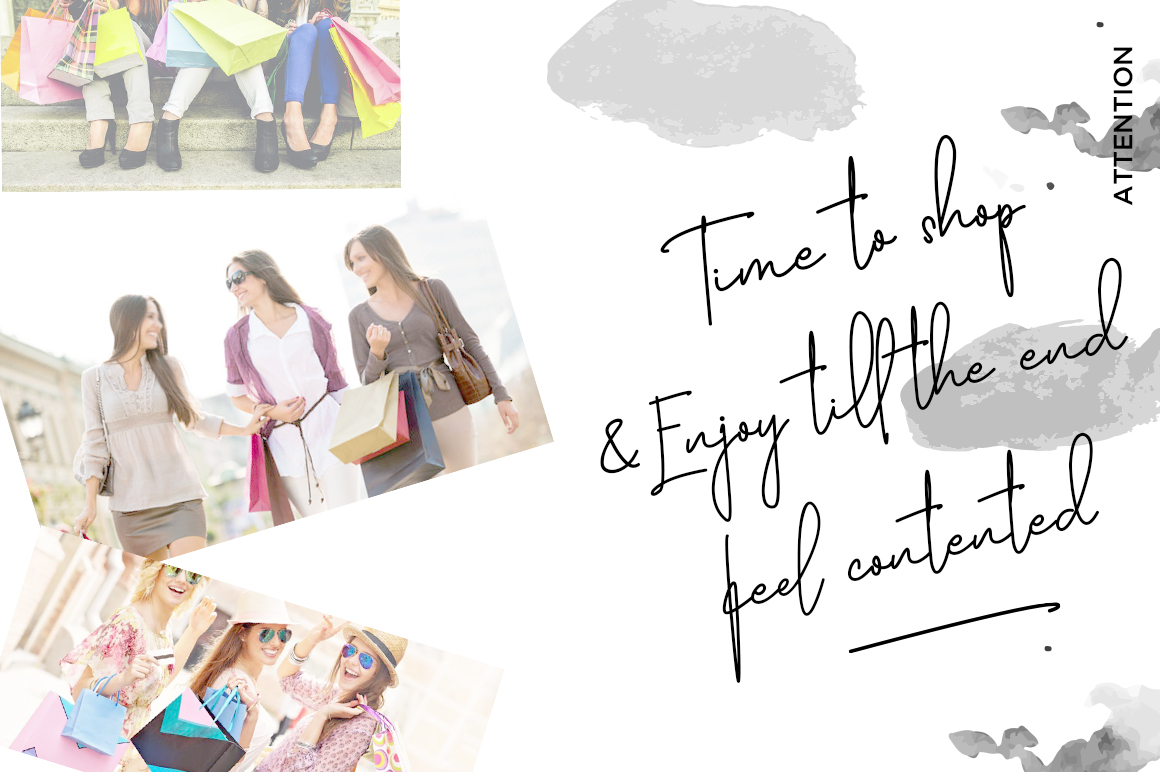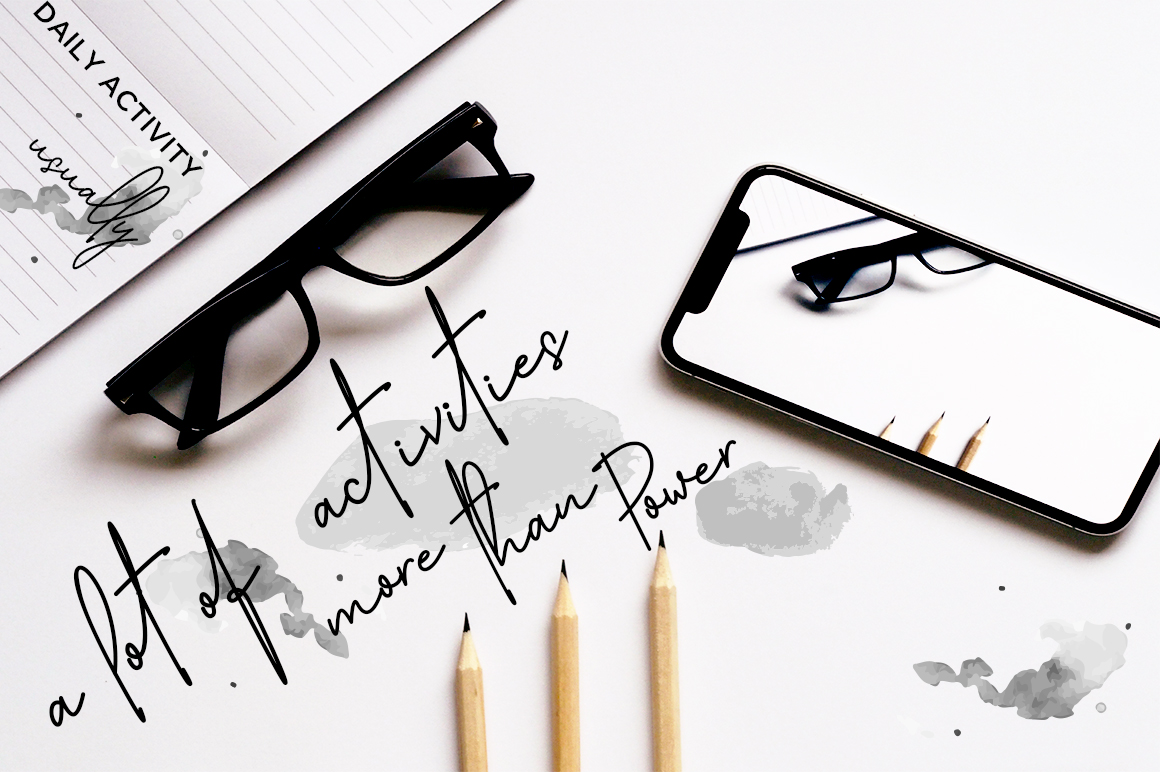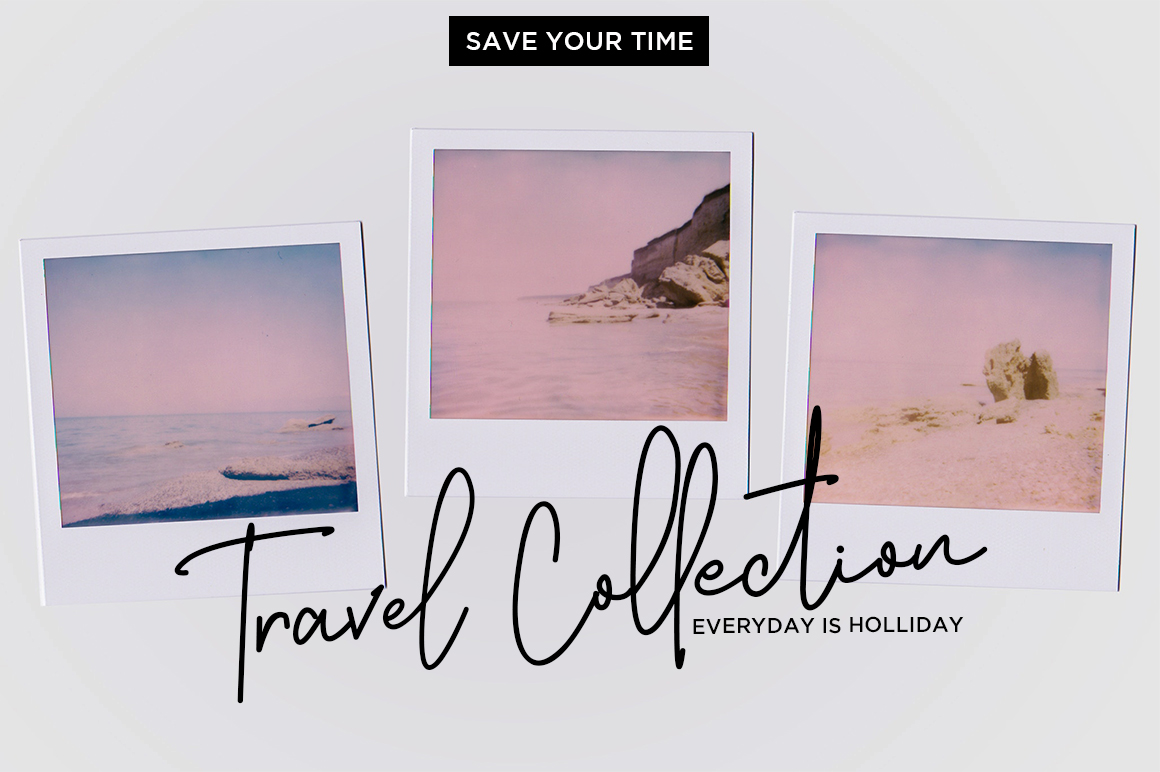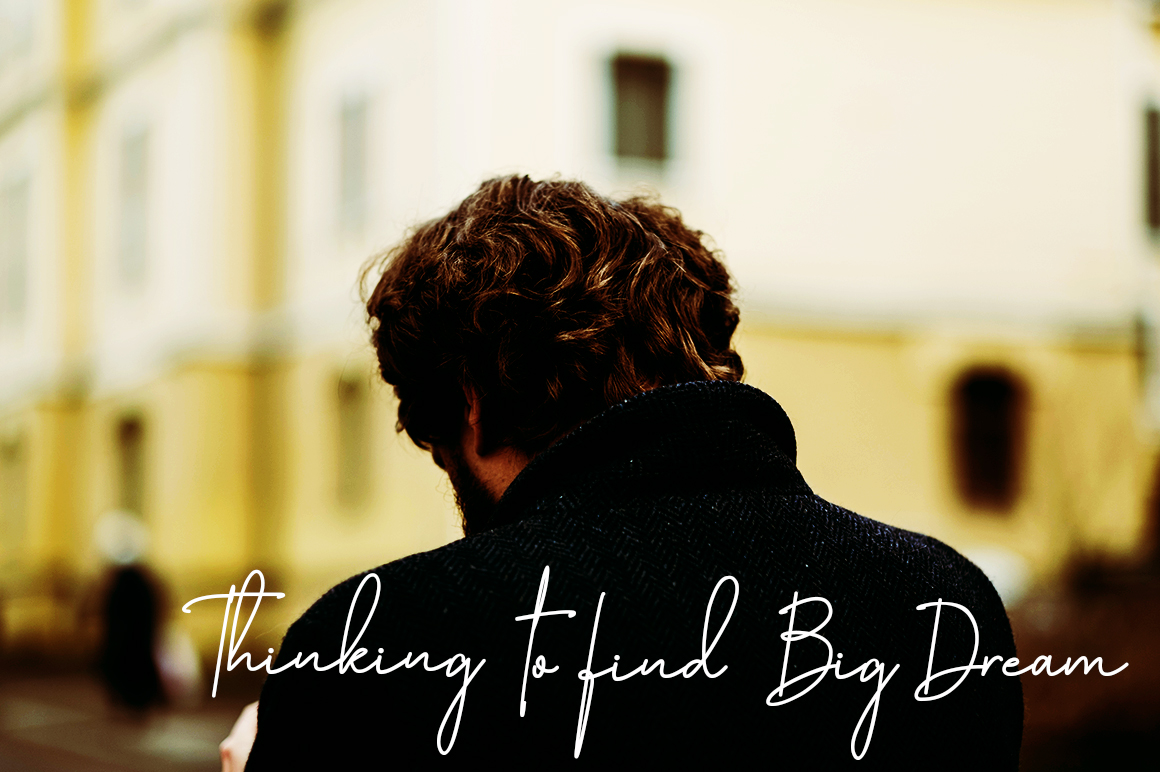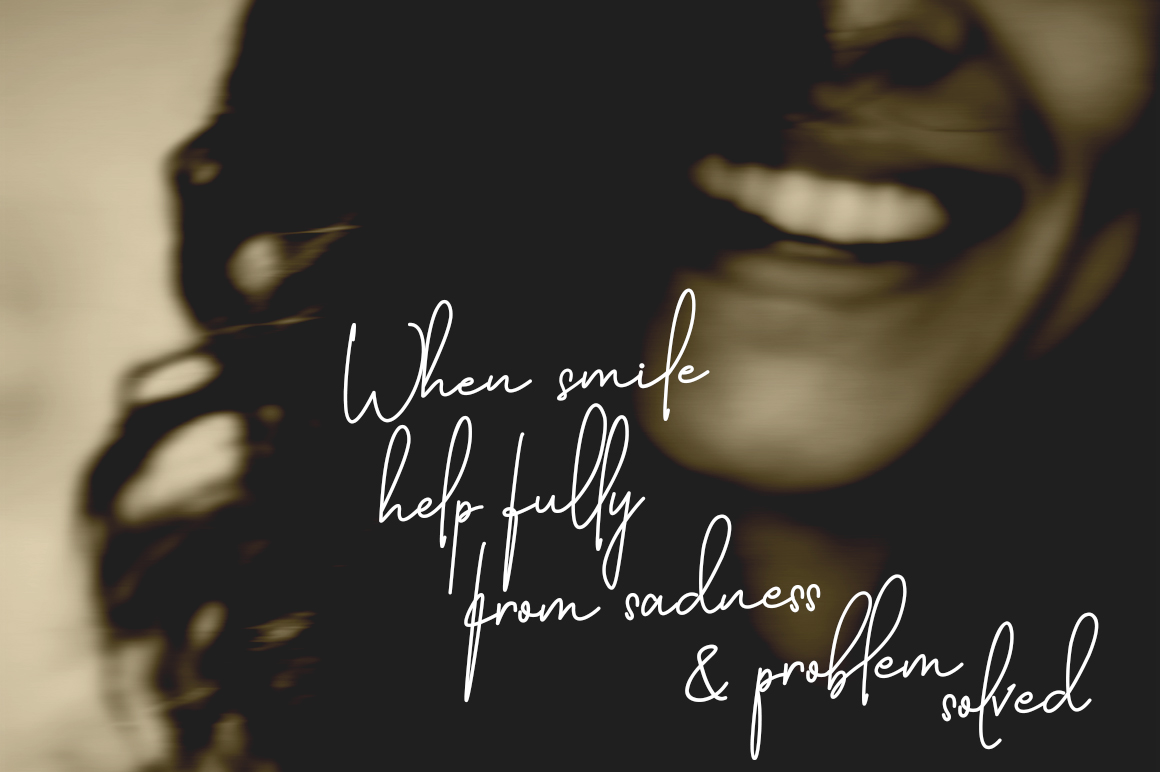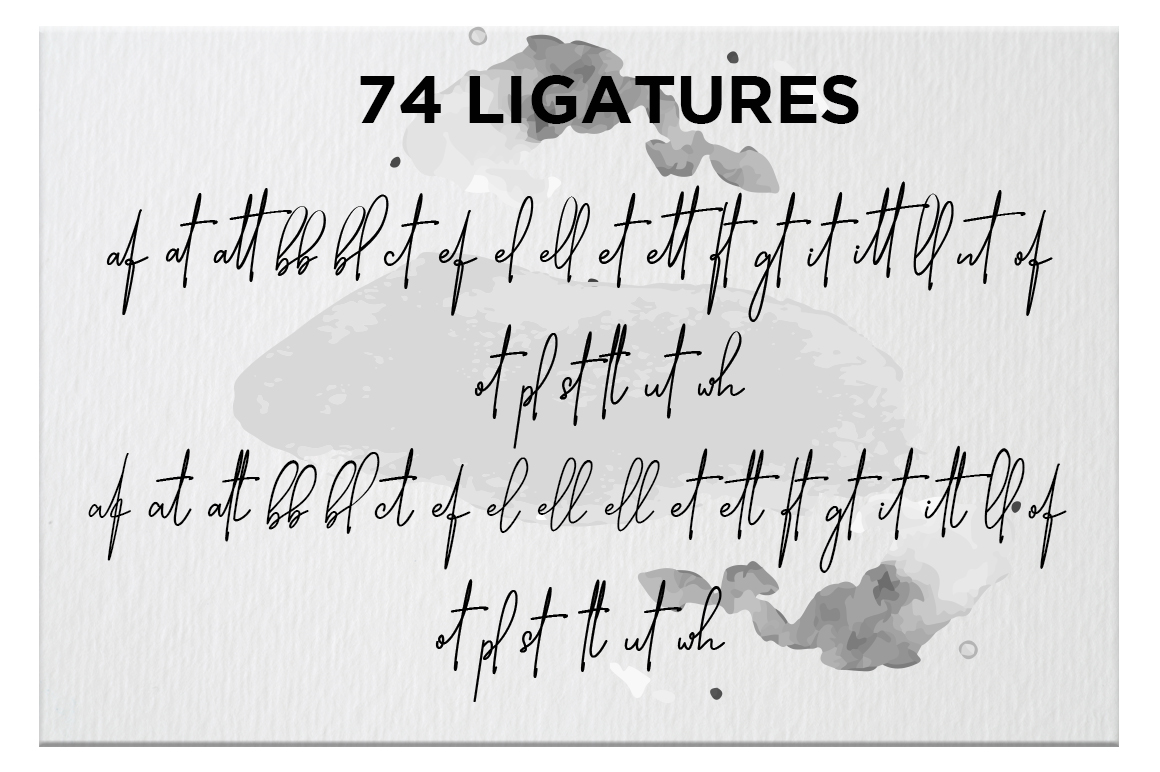
Katty Pretty Font
About Katty Pretty Font
Need some signature style with a sexy appeal? Katty Pretty was created to look as close to a natural handwritten script as possible by including over 74 ligatures, and looks phenomenal in fasionable or brandable content in both digital and print scapes.